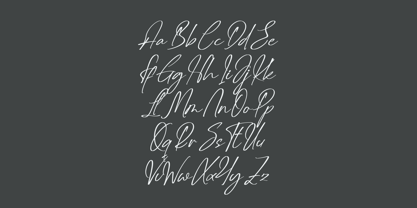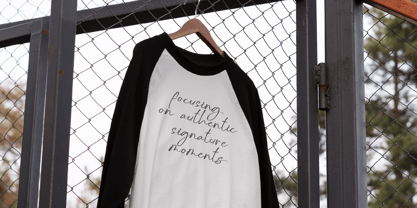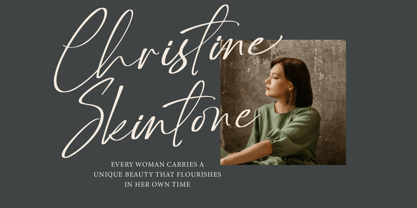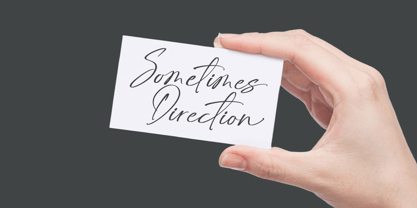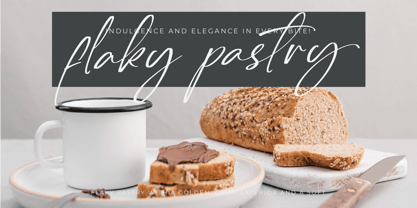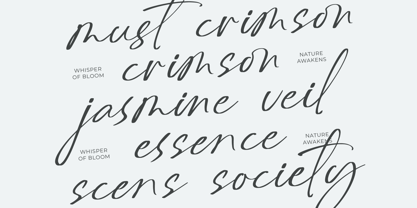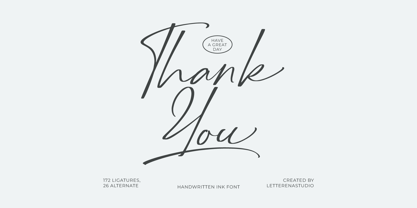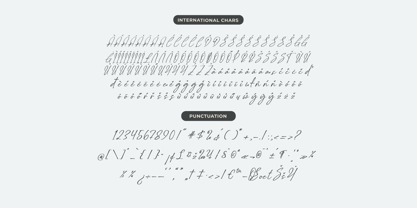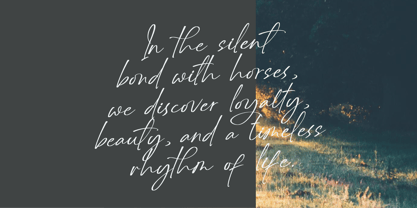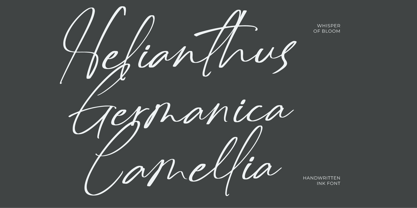
Delynta Roastiph
by Letterena Studios
The Delynta Roastiph Font Family was designed by Heru Utama Putra and published by Letterena Studios. Delynta Roastiph contains 2 styles and family package options. More about this family
Delynta Roastiph - Handwritten Ink Font , from Letterena, is a Luxury Script font, suitable for any projects such as: logos, branding projects, homeware designs, product packaging, mugs, quotes, posters, shopping bags, t-shirts, book covers, name card, invitation cards, greeting cards, label, photography, watermark, special events, and all your other luxury and beautiful projects that need a Luxury Script taste.